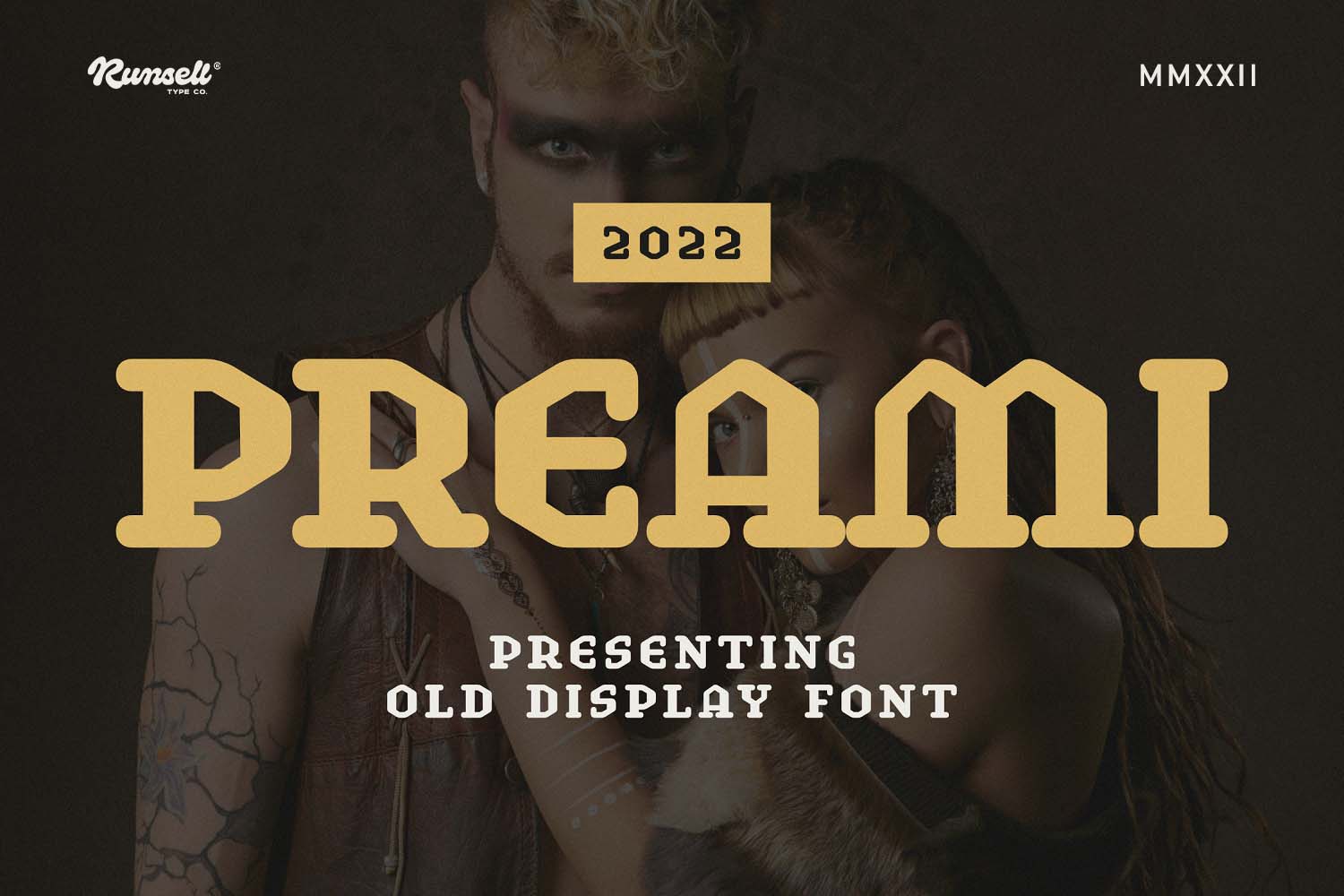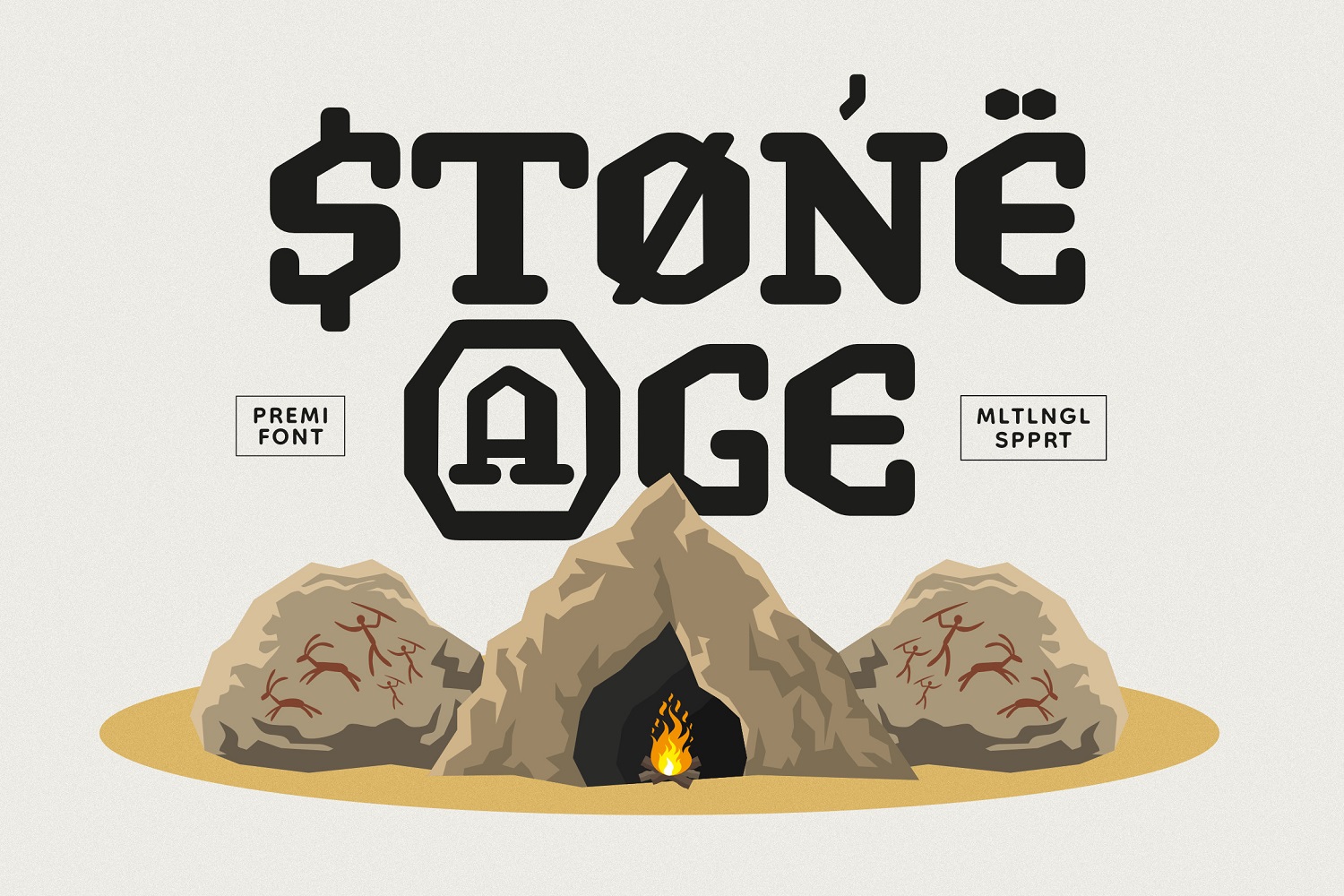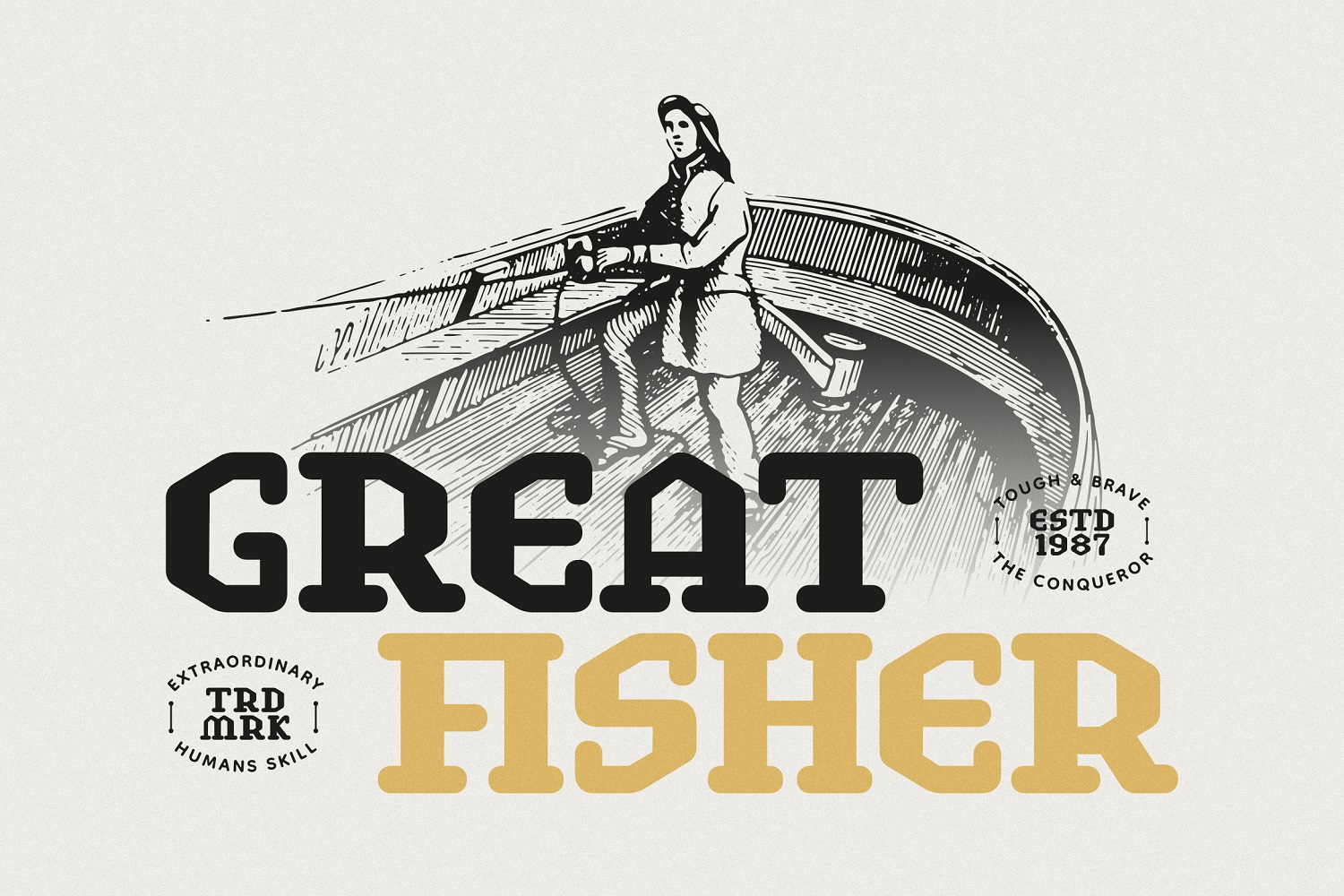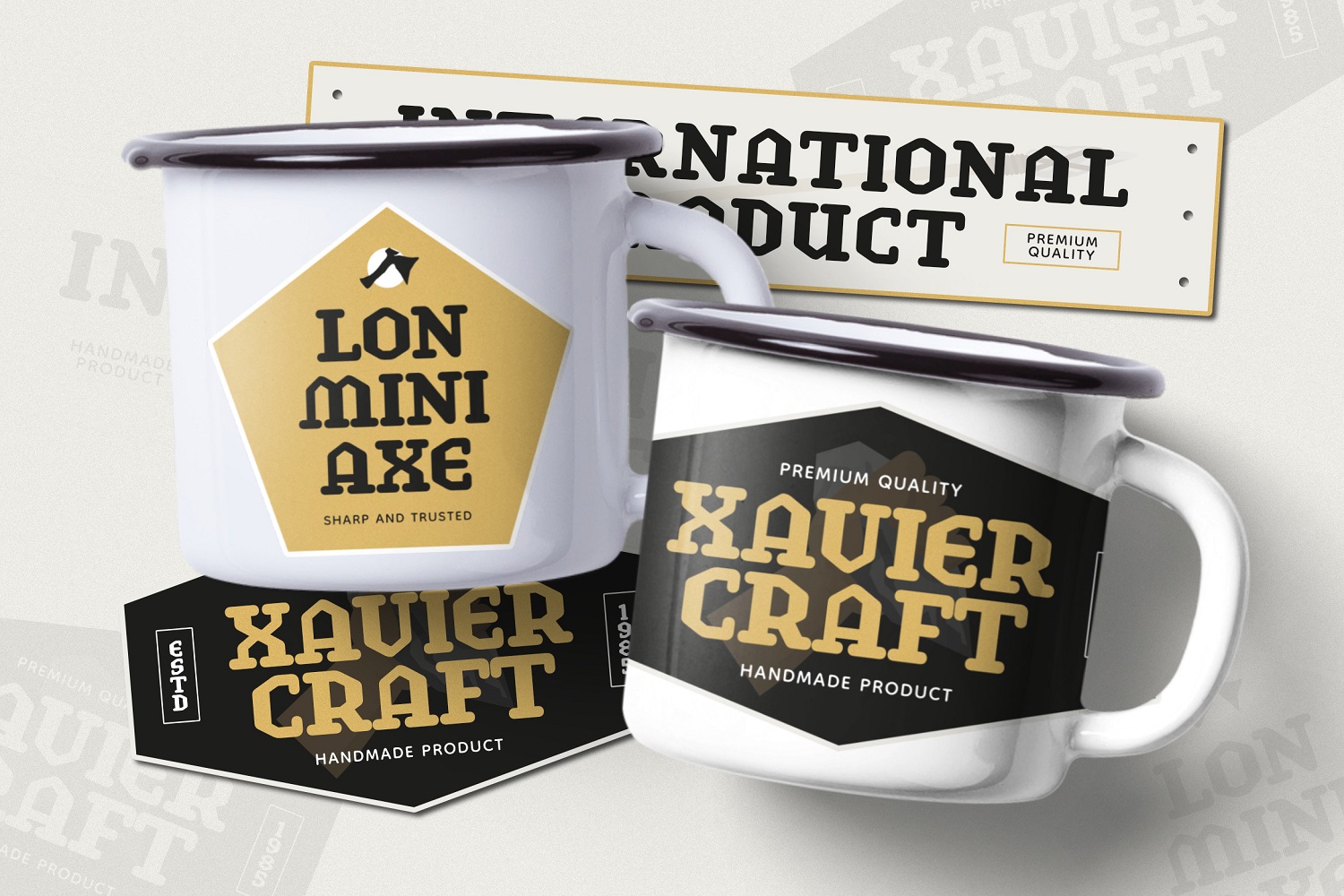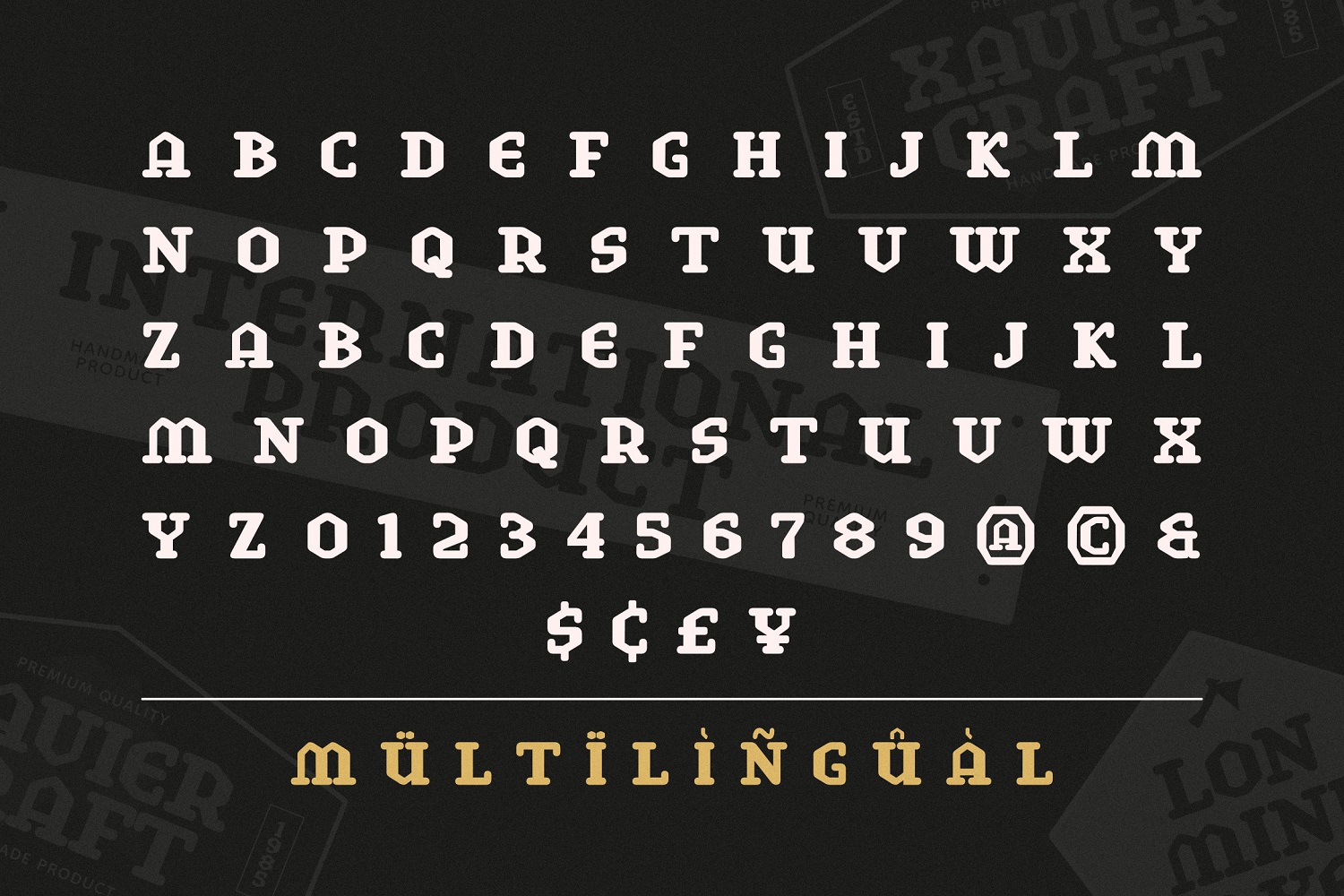
Preami
Preami is a bold and distinctive display font that draws inspiration from old-fashioned signage and retro craftsmanship. With its blocky, octagonal letterforms and unique rounded terminals, Preami evokes a rugged, handmade aesthetic that feels both powerful and nostalgic. The font is perfect for headlines, logos, packaging, and vintage branding, offering a strong presence that demands attention.
Designed with multilingual support and a wide character set, Preami seamlessly integrates into modern visual identities while retaining its antique charm. Whether used for artisan product labels, retro apparel brands, or creative editorial titles, Preami delivers a confident tone with a timeless edge.